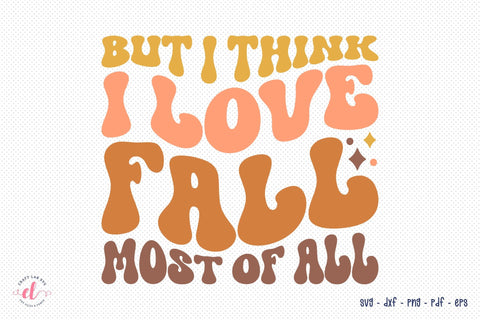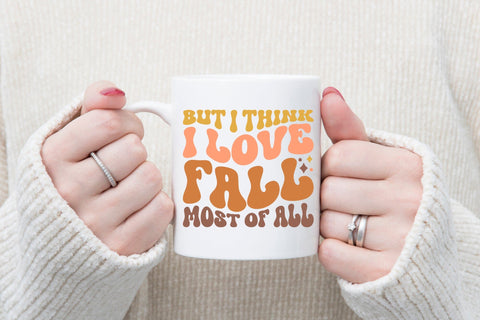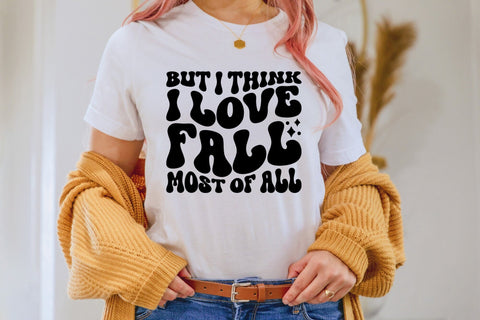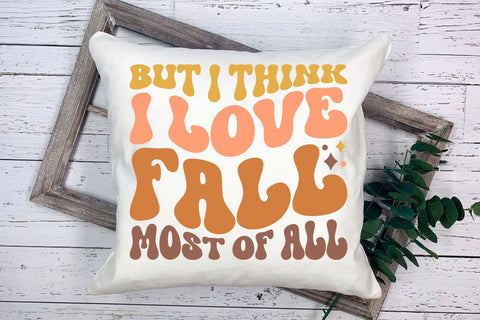
But I Think I Love Fall Most of All Retro Fall SVG
Get creative this season with our Retro Fall SVG design. Infuse your crafts with the elegance and charm of bygone days. Perfect for creating t-shirts, mugs, tote bags, pillows, and much more!